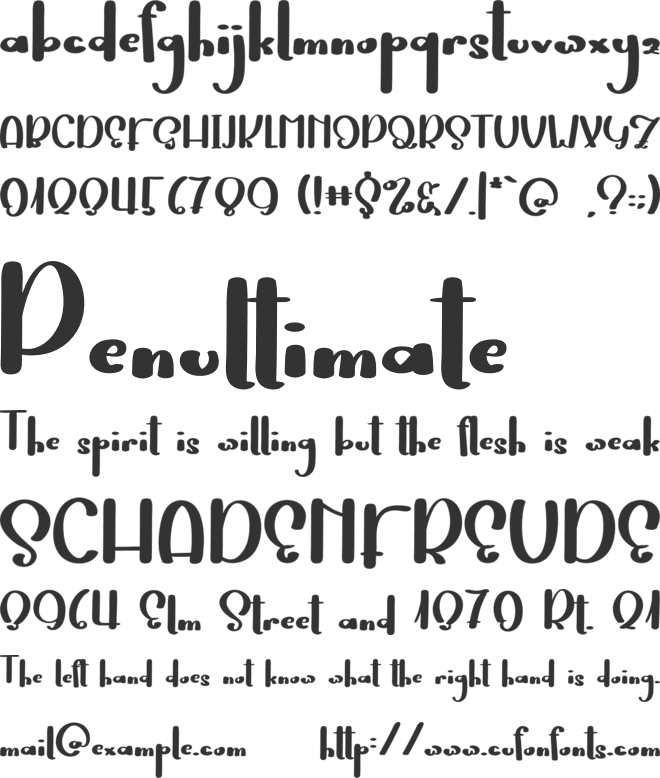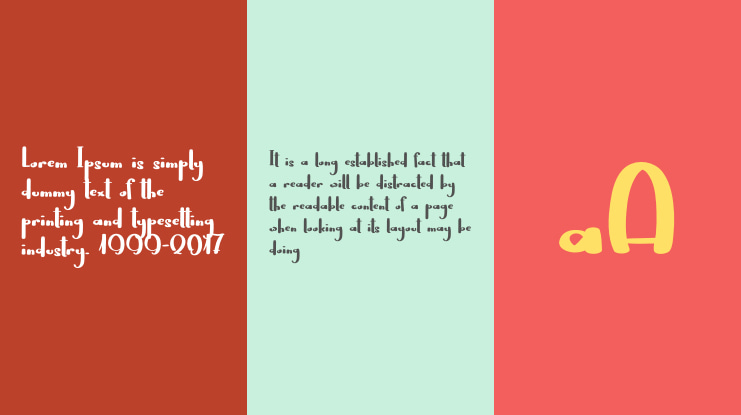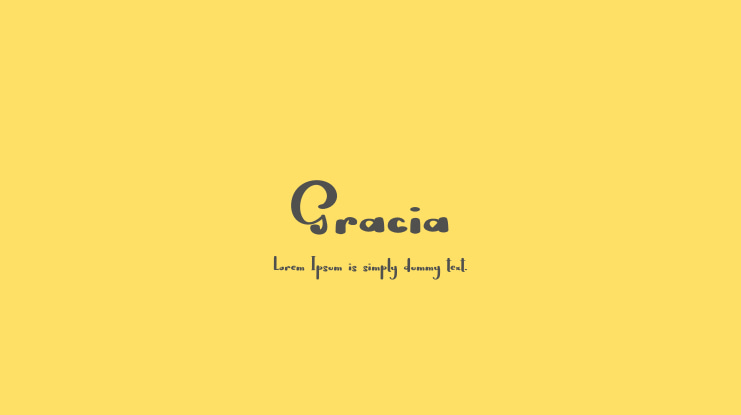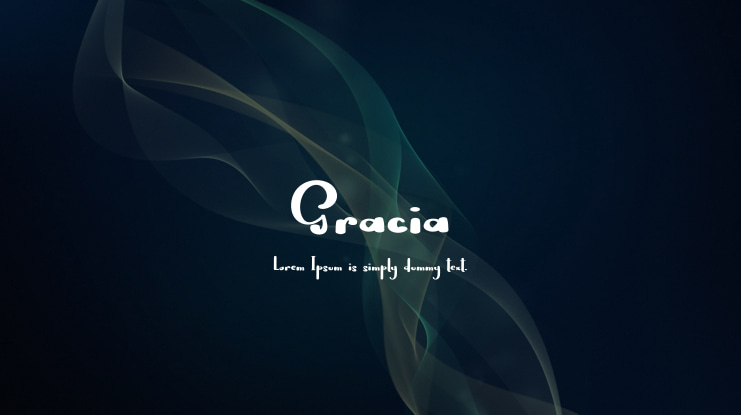
Gracia Font
Gracia is a cute display font. Clean and a little bit quirky, this font is the perfect fit for all of your logos, branding, social media, and crafty DIY projects.